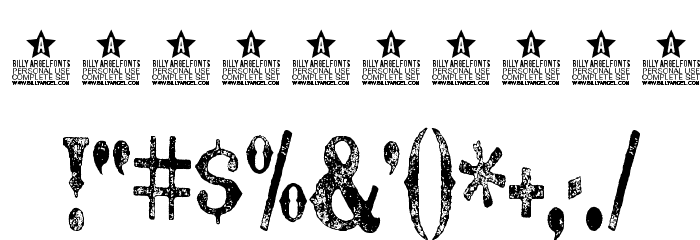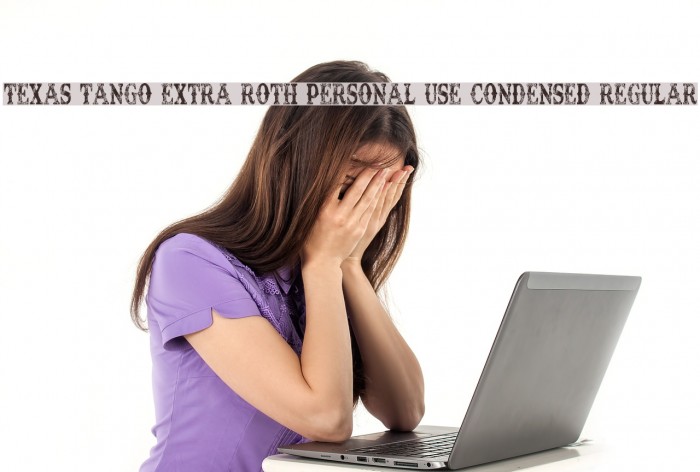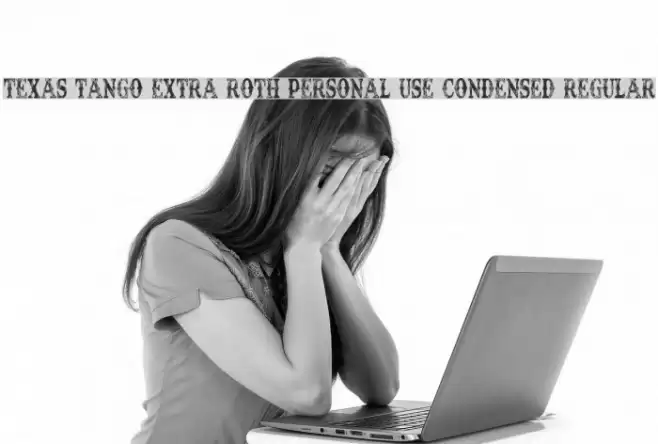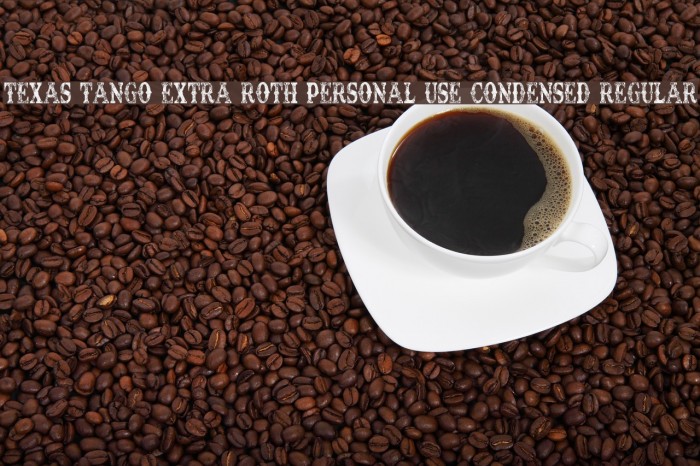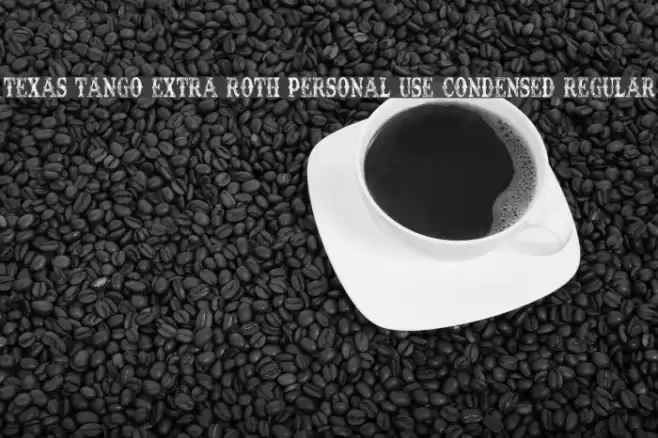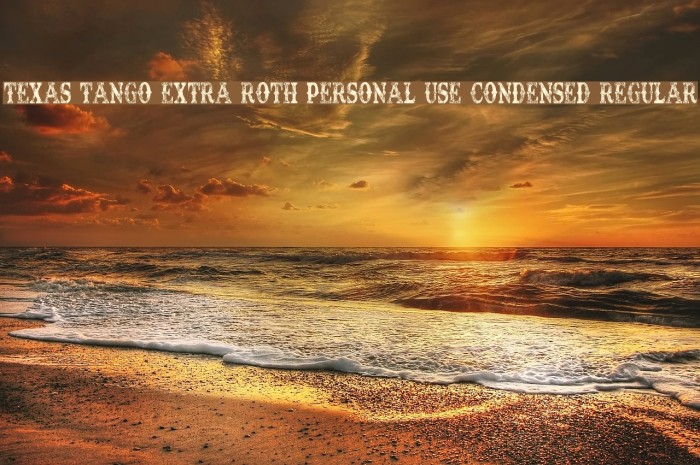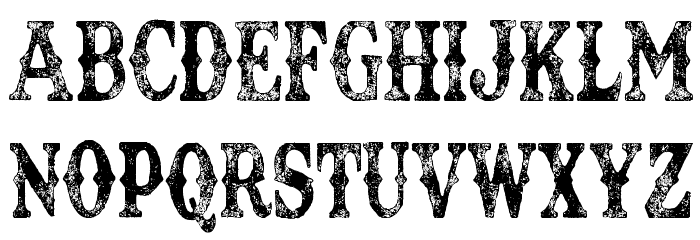
TEXAS TANGO EXTRA ROTH PERSONAL USE Condensed Regular Font
TEXAS TANGO EXTRA ROTH PERSONAL USE Condensed Regular Description
This font features a bold, distressed style with a textured appearance that gives it a rugged, vintage feel. The uppercase and lowercase letters are designed with a consistent width, maintaining a condensed form that enhances its boldness. The characters are heavily stylized with a worn, grunge effect, making them ideal for designs that require a rustic or antique aesthetic. The numerals and special characters follow the same design principles, ensuring uniformity across all glyphs. This font is particularly suitable for projects that aim to convey a sense of history or authenticity, such as posters, branding for vintage-themed products, or any creative work that benefits from a touch of nostalgia.
Proposed ProjectsIdeal for vintage posters, rustic branding, and creative projects requiring a historical or antique look.